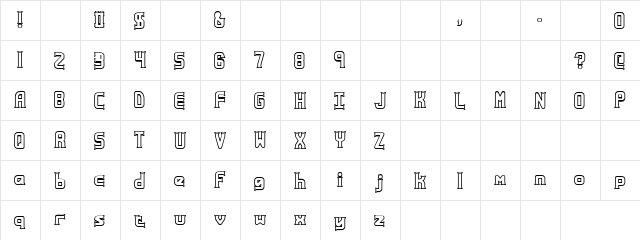
Fatrea thin Regular
Design Context for Fatrea thin Typeface
Fatrea thin is a composed and adaptable typeface that performs quietly and consistently across a wide range of design contexts. The delicate stroke weight brings airiness and refinement to layouts.
Pro Tip: Use Fatrea thin in both headline and body roles to test its range before committing to a single application.